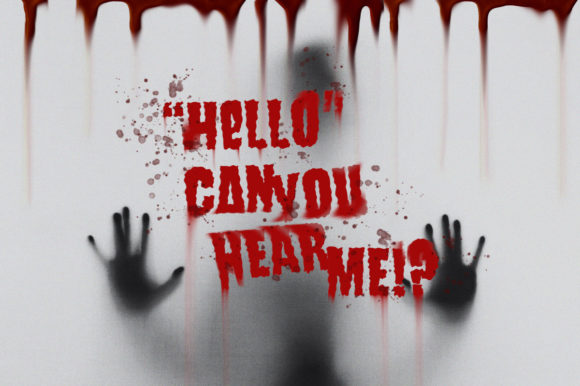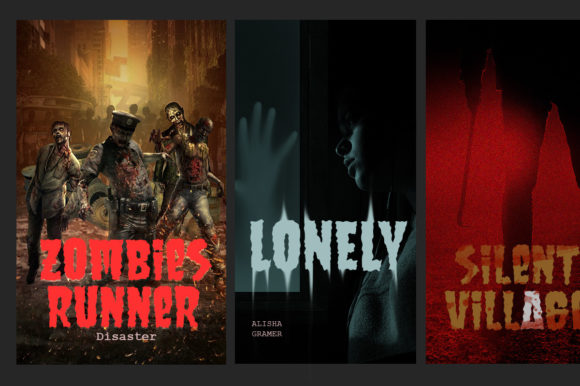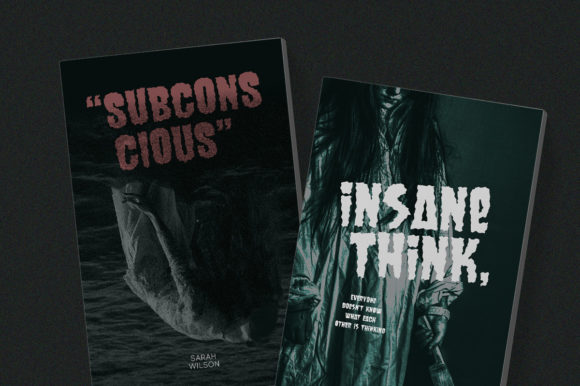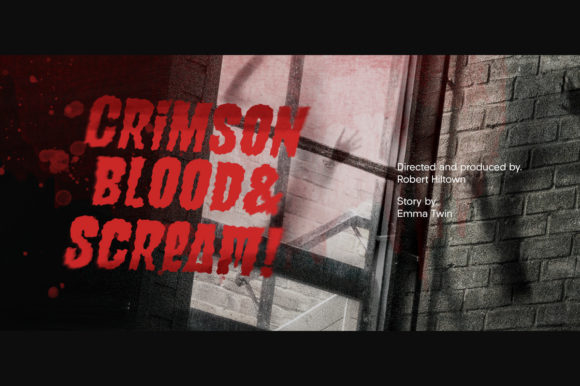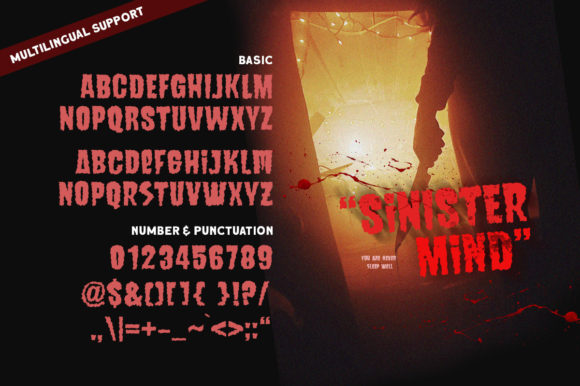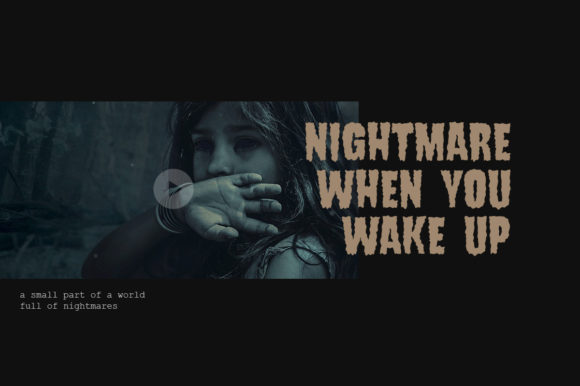
Introduction to Sinister Mind Font
Sinister Mind is an eye-catching typeface with a great look in horror / creepy font.
This type of font is perfect to be applied especially in movies that need a standout font You can also use it for simple forms such as invitations, labels, logos, magazines, books, greetings, packaging, novels, labels, or advertising purpose.